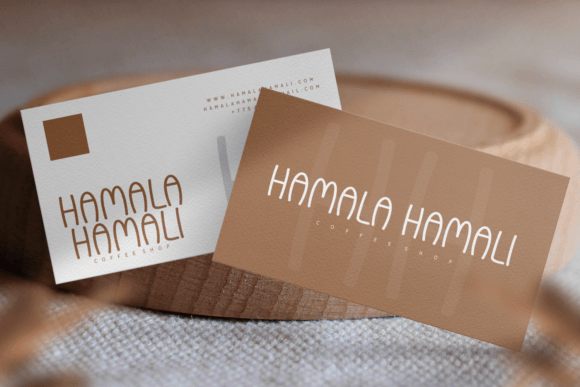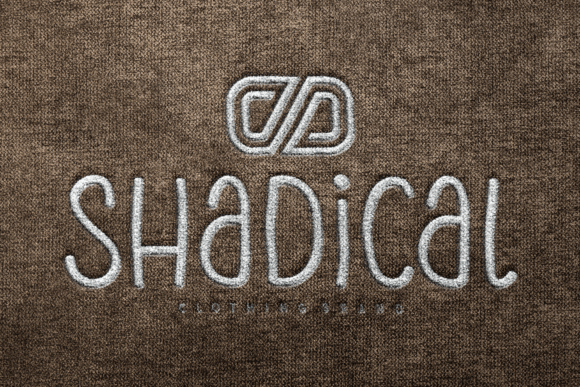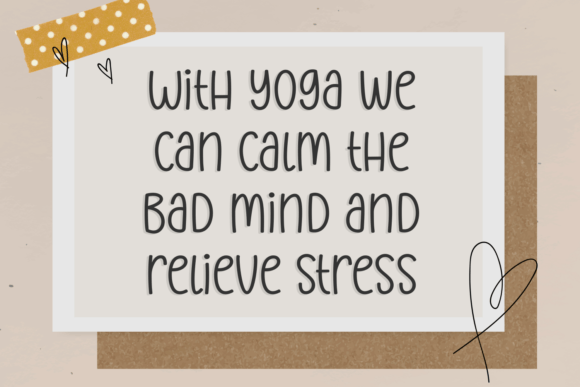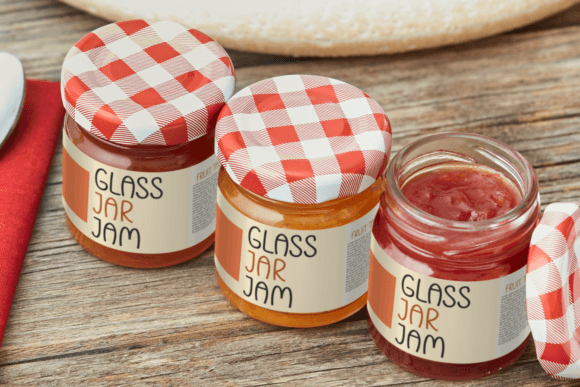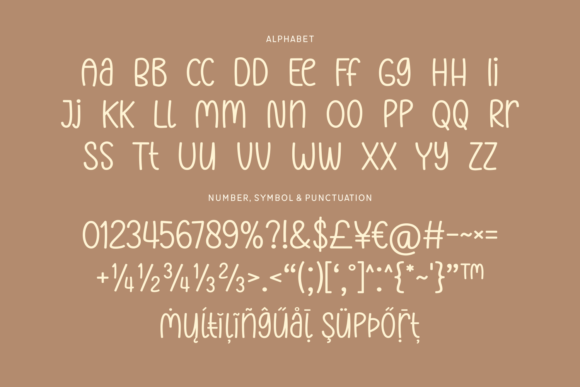
Introduction to Sharpen Your Mind Font
Sharpen Your Mind is a lovely monoline handwritten font.
Clean and neat, this cute typeface will suit a wide range of design projects – posters, quotes, logos, business cards, labels, invitations, fabric prints, and many more .
Key Features of Sharpen Your Mind Font